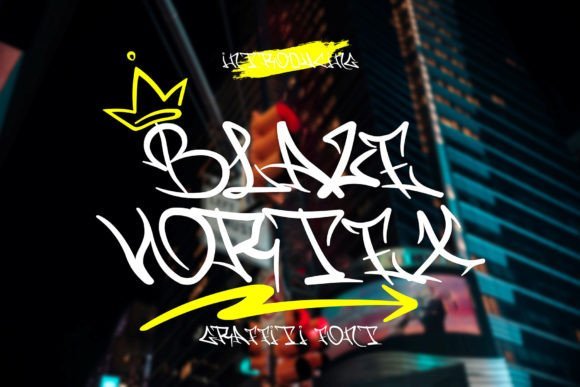
Unlock Your Creativity with the Blaze Vortex Font
You’ve spent hours brainstorming ideas, pouring over inspiration, and tweaking every detail – and then it hits you. The perfect design concept, the one that makes your heart skip a beat and gets you pumped up to create. This is the moment when the right font can make all the difference. For designers looking to add a raw, urban touch to their work, there’s a game-changing option: the Blaze Vortex Font.
With its captivating swash decorations and bold, monoline style, the Blaze Vortex Font is perfect for streetwear brands, music posters, and urban-themed projects. This electrifying font exudes boldness and excitement, making it an invaluable addition to any designer’s toolkit. Whether you’re a seasoned pro or just starting out, the Blaze Vortex Font is sure to unleash your creativity and take your designs to the next level.
Blaze Vortex Font Key Features
- Font Family: Blaze Vortex, a unique and dynamic font with a blend of modern and futuristic elements.
- Unique Characteristics: Blaze Vortex features a distinctive vortex-like effect, with swirling patterns and shapes that add a dynamic touch to any design.
Designer Review: Blaze Vortex Font
Overall, I think the Blaze Vortex Font is an interesting and eye-catching addition to any design project. ✨ It has a bold, dynamic feel that can add a lot of energy to text-based content. I’ve used it for headings and titles, and it really stands out.
The font’s irregular, swirling shapes can be both a strength and a weakness. ✨ It’s great for creating a sense of movement and visual interest, but it can also be overwhelming if used too extensively. I think it works best in moderation, as a way to add emphasis or create a focal point.
One of the limitations of the Blaze Vortex Font is its potential for readability issues. ⚠️ In certain contexts, the swirling shapes can make it difficult to distinguish between letters or words. This can be particularly problematic for body text, where clarity is essential.
Here are some specific things that work well and some things to watch out for:
- ✨ Bold, dynamic feel
- ✨ Can add energy and visual interest to text-based content
- ✨ Works well for headings and titles
- ⚠️ Potential for readability issues
- ⚠️ May be overwhelming if used too extensively
- ⚠️ Can be difficult to distinguish between letters or words in certain contexts
Overall, I think the Blaze Vortex Font is a great choice for designers who want to add a bold, dynamic touch to their work. Just be mindful of its limitations and use it thoughtfully to avoid readability issues.
The Blaze Vortex font is ideal for creating dynamic and energetic designs, such as:
– Marketing materials
– Event posters
– Headlines and titles
To get the most out of the Blaze Vortex font, try using it in combination with bold or italic styles to add emphasis. You can also experiment with different font sizes and colors to create a visually striking design.
Alternatives to Blaze Vortex Font
Pacifico is a beautiful, elegant script font that’s perfect for creating a luxurious and sophisticated look. It’s great for use in invitations, logos, and branding materials where a touch of class is needed.
Pacifico is more elegant and refined compared to Blaze Vortex Font, which has a more energetic and dynamic feel. Pacifico is ideal for creating a calming atmosphere, while Blaze Vortex Font is better suited for energetic and high-energy projects.
Great Vibes is a fun and playful script font that’s perfect for creating a lively and energetic atmosphere. It’s great for use in social media posts, advertisements, and other marketing materials where a fun and engaging tone is needed.
What is the recommended font size for optimal readability with the Blaze Vortex Font?
The recommended font size for optimal readability with the Blaze Vortex Font is between 12pt and 18pt. However, this may vary depending on the specific use case and the surrounding design elements. It’s always a good idea to test the font at different sizes to ensure optimal readability.